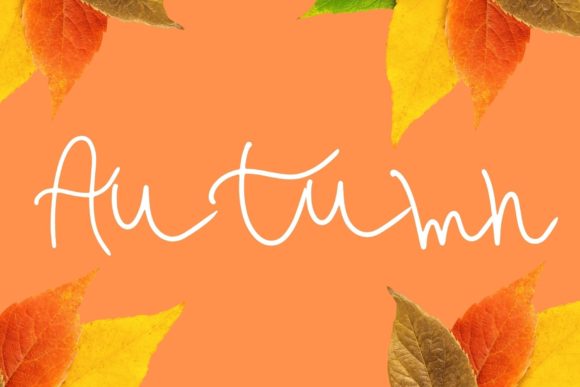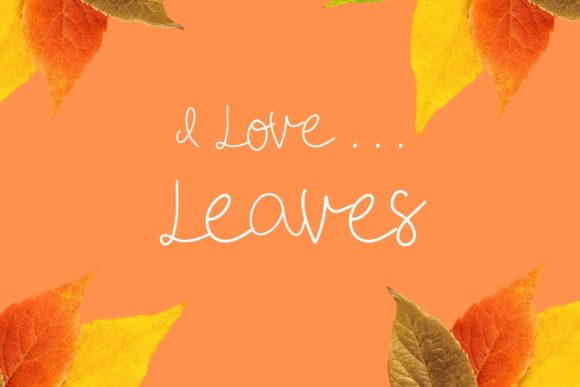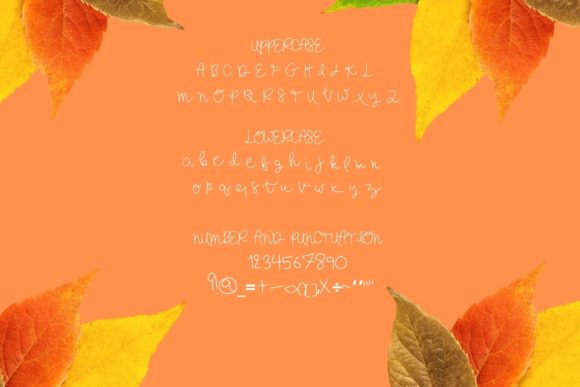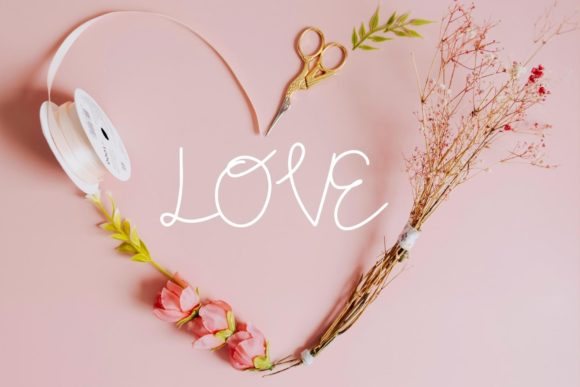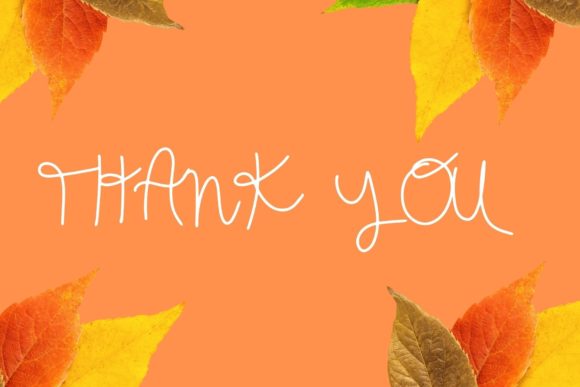
Autumn Font
About Autumn Font
“Autumn” is a cute handwritten font designed to make your work stand out with its sweet and neat lines. With a charming and playful style, this font is well-suited for a variety of creative projects, including product packaging, branding, magazine covers, social media graphics, weddings, and any design where you want to convey a warm and inviting atmosphere with a touch of cuteness.
The cute handwritten nature of “Autumn” adds a personal and whimsical feel to your text, making it perfect for projects that require a lighthearted and friendly ambiance. The sweet and neat lines contribute to the font’s overall charm, enhancing its suitability for a range of creative applications.
Whether you’re working on product packaging, creating a brand identity, or designing content for social media, “Autumn” is versatile enough to adapt to different contexts. Its playful style makes it fitting for a variety of themes, and its warmth makes it particularly suitable for projects related to the autumn season or any design where you want to evoke a cozy and inviting feeling.
The font’s readability and neat lines ensure that your message is conveyed clearly, making it suitable for various design materials. Whether you’re designing invitations, greeting cards, or adding a touch of cuteness to your social media posts, “Autumn” can bring a delightful and expressive element to your creative projects.
In summary, “Autumn” is more than just a font; it’s a cute and handwritten tool that adds sweetness and charm to your designs. Its versatility makes it suitable for a range of projects, allowing you to infuse your creativity with a playful and inviting vibe. Consider using “Autumn” for your next product packaging, branding, or social media project, and let its sweet and neat lines make your work stand out in a warm and delightful way.